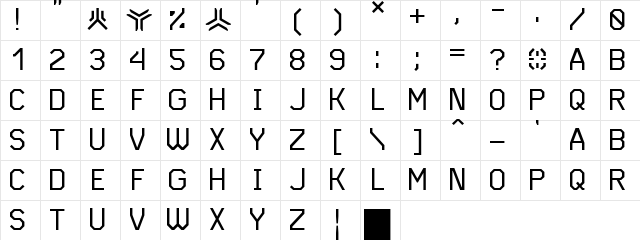
Complete ISL_Andvari Regular glyph index. Displaying only characters natively supported by ISL_Andvari Regular font.
ISL_Andvari is a composed and adaptable typeface that performs quietly and consistently across a wide range of design contexts.